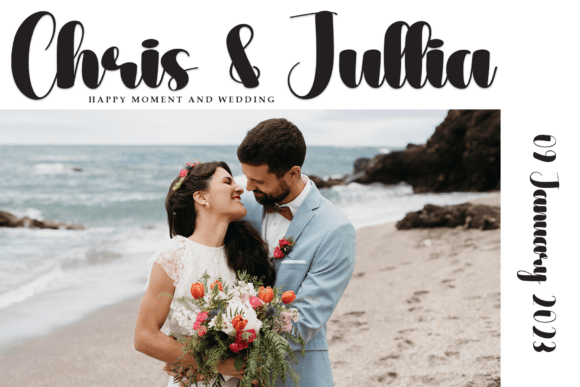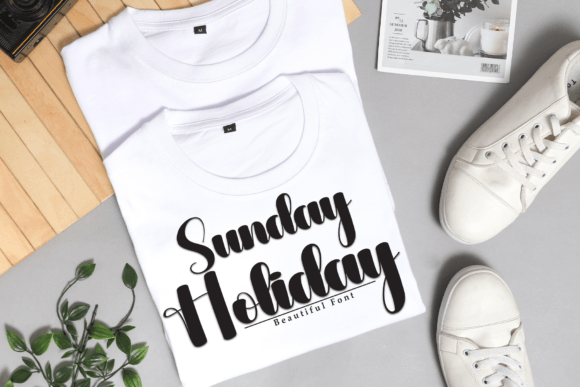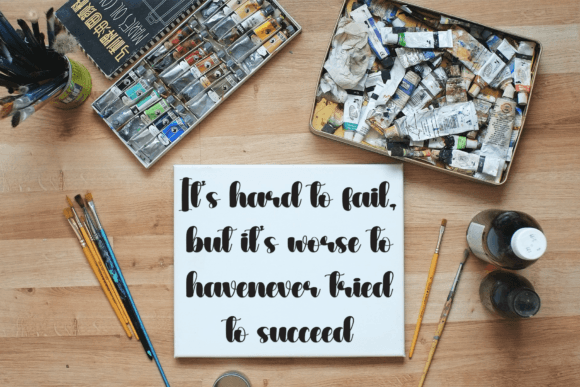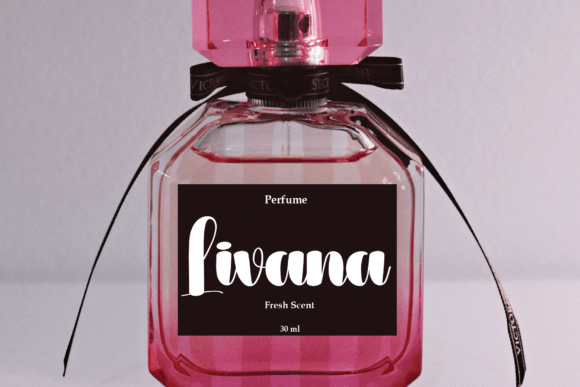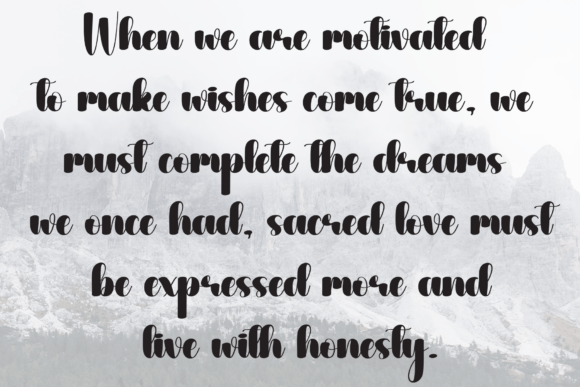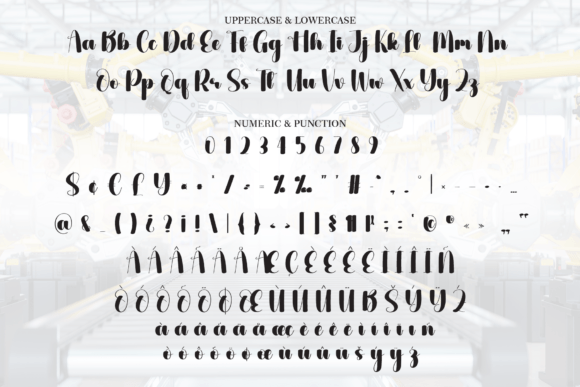
Introducing Automatic: The Sweet and Friendly Handwritten Display Font
Are you a designer or crafter looking for a font that adds a touch of whimsy and fun to your projects? Look no further than Automatic, a sweet and friendly handwritten display font that’s perfect for a variety of creative endeavors. In this article, we’ll dive into the world of Automatic and explore its features, uses, and benefits.
A Font that’s Cute and Fun
Automatic is a beautifully crafted handwritten font that’s designed to bring a smile to your face. Its sweet and friendly demeanor makes it an ideal choice for projects that require a personal touch. Whether you’re creating wedding invitations, greeting cards, or social media graphics, Automatic is sure to add a dash of fun and personality to your designs.
Ideal for Wedding Invitations and Cards
One of the primary uses of Automatic is for writing wedding invitations and cards. The font’s elegant yet playful style makes it perfect for couples who want to add a touch of whimsy to their special day. With Automatic, you can create beautiful and unique wedding invitations that set the tone for a romantic and memorable celebration.
In addition to wedding invitations, Automatic is also great for creating greeting cards for birthdays, anniversaries, and other special occasions. The font’s friendly and approachable style makes it easy to express your feelings and add a personal touch to your cards.
Automatic is a versatile font that’s suitable for a wide range of design projects. Whether you’re a professional designer or a crafter, this font is easy to use and can add a touch of personality to your work. Here are some ways designers and crafters can use Automatic:
- Digital graphics: Use Automatic to create social media graphics, blog headers, and other digital graphics that require a personal touch.
- Print-on-demand products: Add Automatic to your print-on-demand products, such as t-shirts, mugs, and phone cases, to give them a unique and playful touch.
- Crafting projects: Use Automatic to create handmade cards, gift tags, and other crafting projects that require a personal touch.
Key Features of Automatic
So, what makes Automatic such a great font? Here are some of its key features:
- Handwritten style: Automatic has a beautifully crafted handwritten style that’s both elegant and playful.
- Display font: Automatic is a display font that’s designed to make a statement. It’s perfect for headlines, titles, and other design elements that require a bold and eye-catching font.
- Easy to read: Despite its playful style, Automatic is easy to read and understand. This makes it perfect for body text and other design elements that require clear communication.
Tips for Using Automatic
Here are some tips for using Automatic in your design projects:
- Pair with other fonts: Automatic looks great when paired with other fonts. Try pairing it with a sans-serif font for a bold and modern look.
- Use for headings: Automatic is perfect for headings and titles. Use it to add a touch of personality to your design elements.
- Experiment with colors: Automatic looks great in a variety of colors. Experiment with different colors to find the one that works best for your design.
In conclusion, Automatic is a sweet and friendly handwritten display font that’s perfect for designers and crafters. Its cute and fun style makes it ideal for a variety of creative projects, from wedding invitations to digital graphics. With its key features, versatility, and ease of use, Automatic is a great addition to any designer’s or crafter’s toolkit. So why not give it a try and see how it can add a touch of whimsy and fun to your designs?